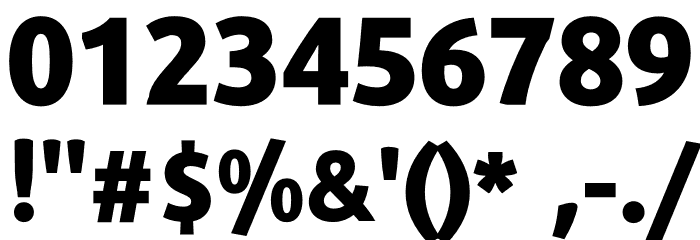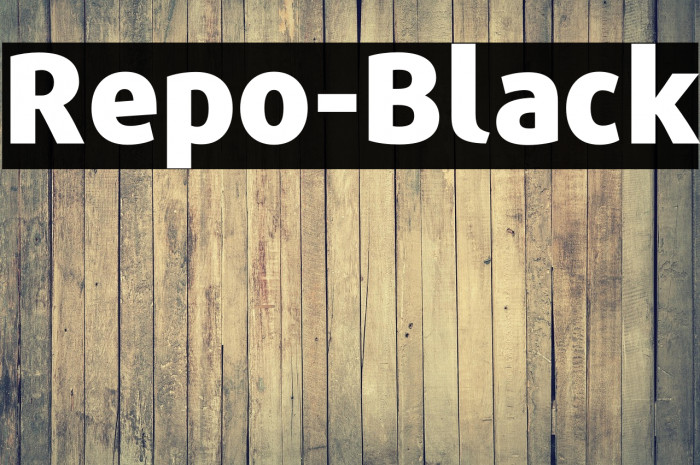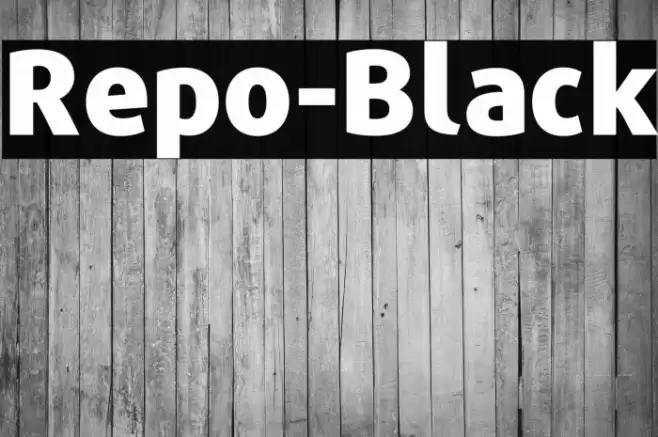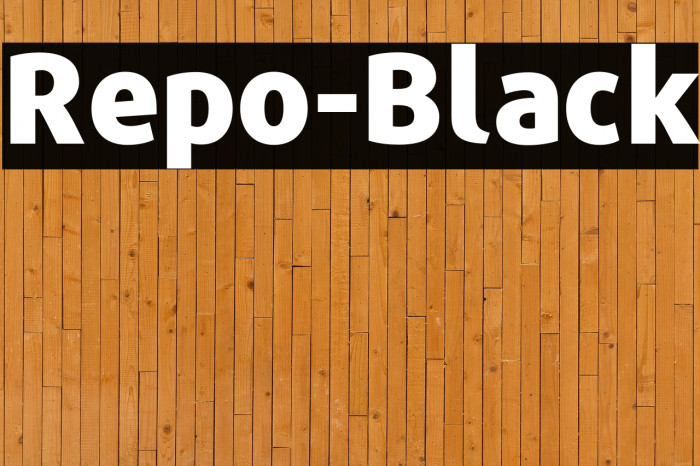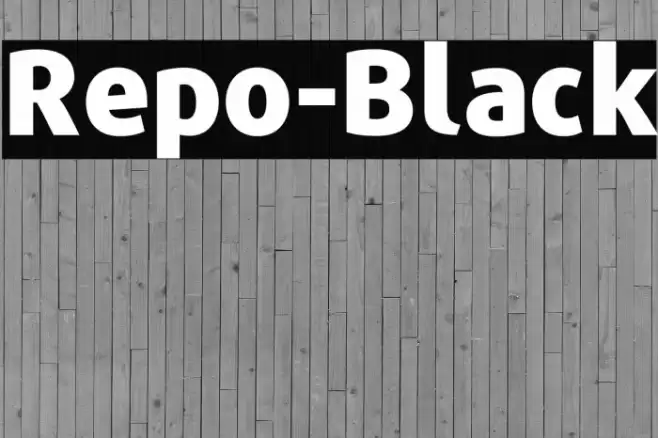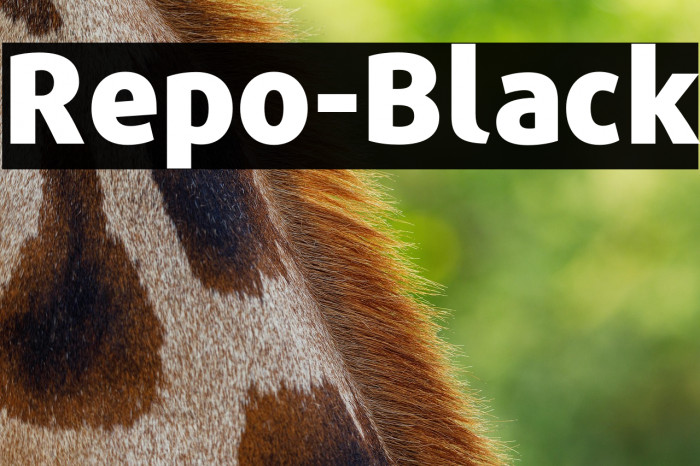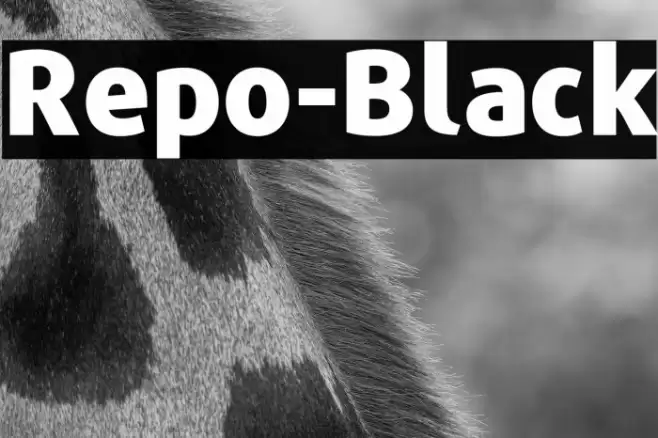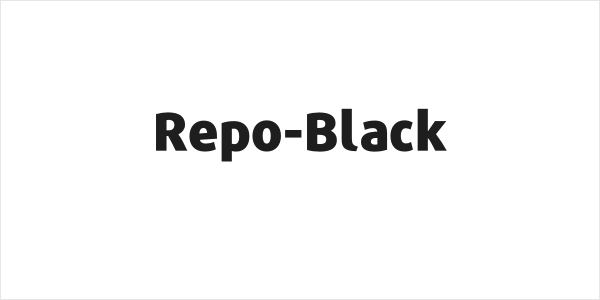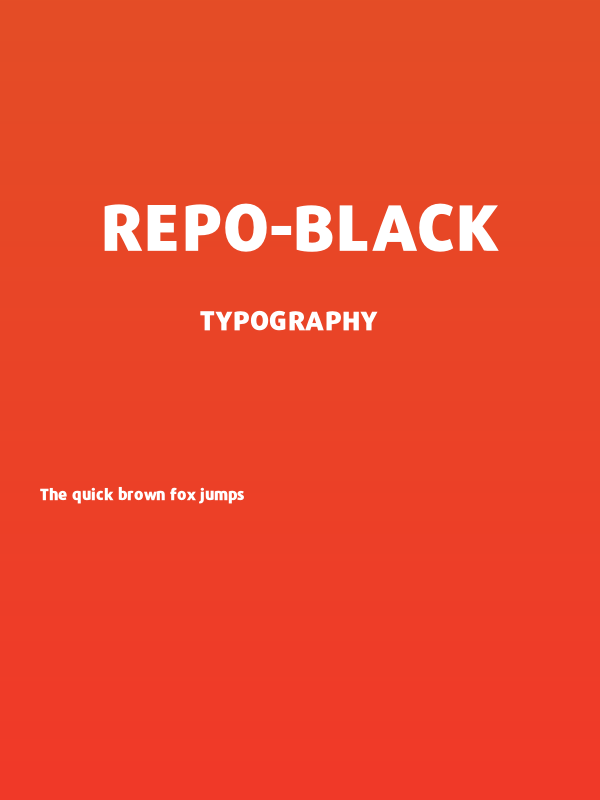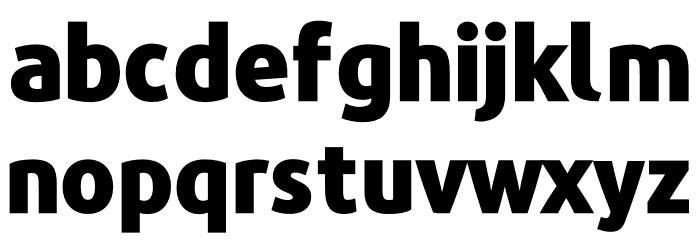
Repo-Black Font
Repo-Black Description
This font exhibits a bold and robust design, characterized by thick, uniform strokes that convey a sense of strength and modernity. The uppercase and lowercase letters maintain a consistent weight, contributing to a cohesive appearance. The numerals are equally bold, ensuring readability and impact. Special characters are designed with the same attention to detail, offering versatility for various applications. The overall style is clean and straightforward, making it suitable for contemporary design projects. Its boldness makes it stand out, while the lack of serifs gives it a modern, uncluttered look.
Proposed ProjectsIdeal for branding, headlines, posters, and digital media where a strong visual impact is desired.